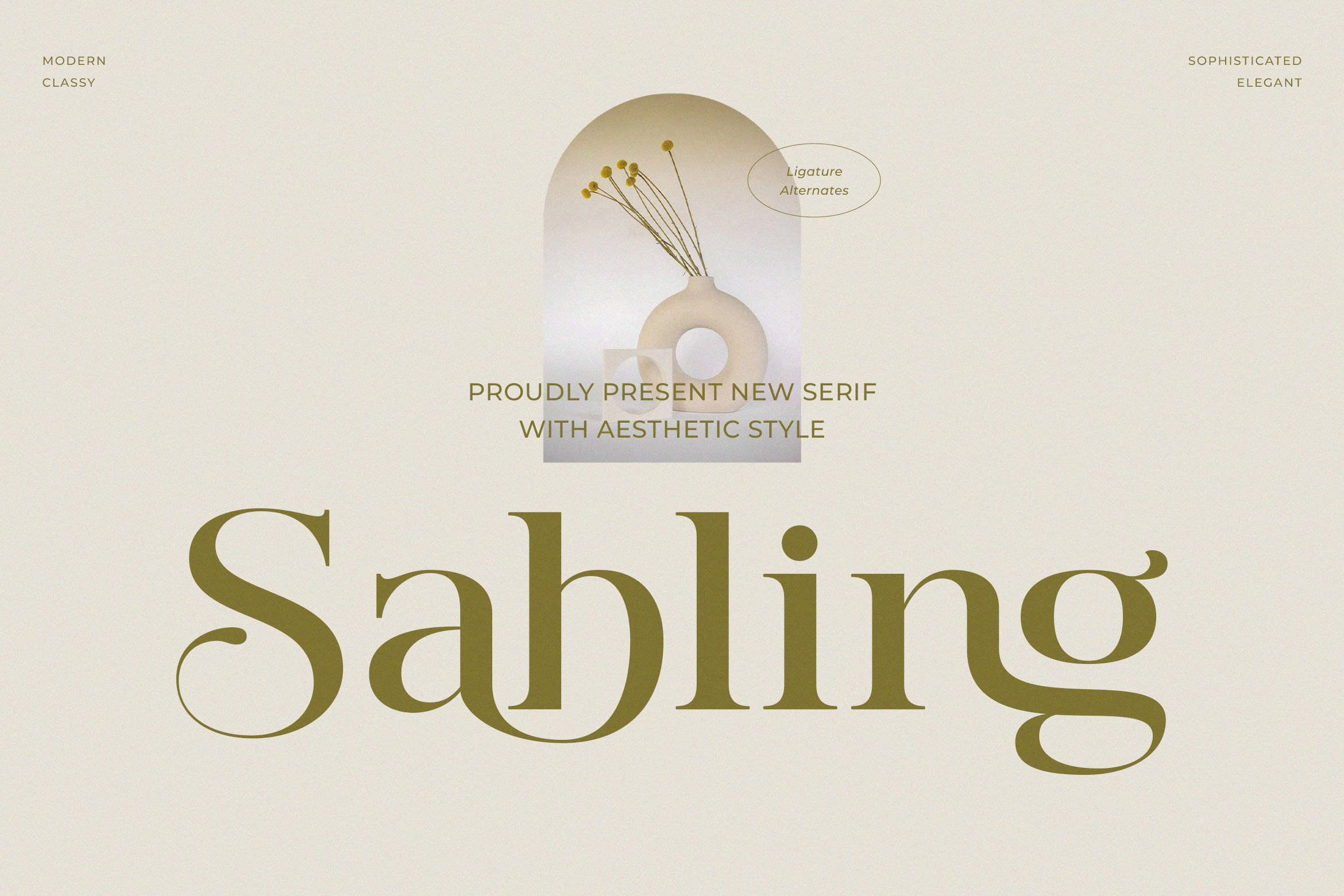
Sabling - Aesthetic Serif Font
Introducing our new "Sabling" modern and elegant serif typeface with elegant style this is perfect for branding, logos, invitation, magazines, product packaging and more.